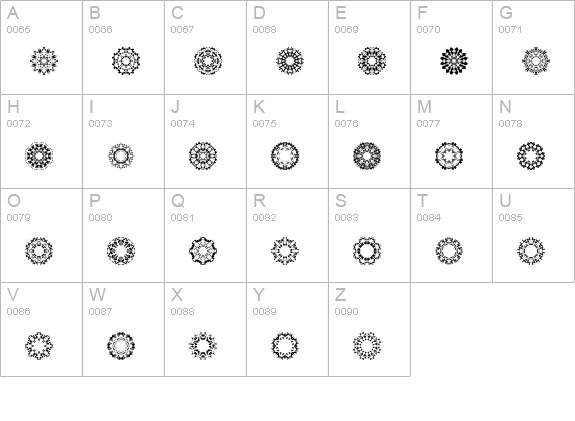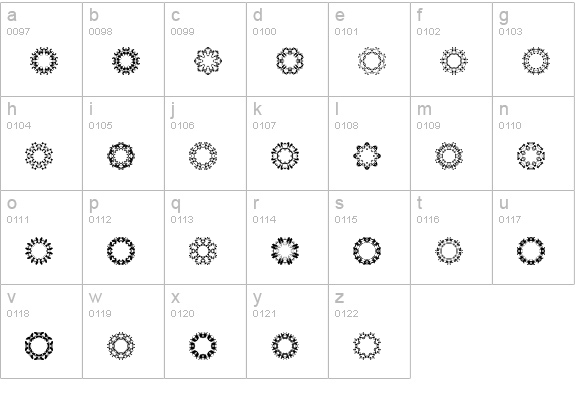
LaMorte10 Font Details
LaMorte10 font is a stunning display typeface that exudes elegance and sophistication. Its sleek and stylish design makes it perfect for adding a touch of class to any project. The intricate details and unique letterforms of LaMorte10 font make it a true standout in the world of typography. But what truly sets LaMorte10 font apart is its availability. This extraordinary font is not only exceptional in its design, but it is also completely free. Yes, you read that right – LaMorte10 font is freely available to download at FontsMarket.com. Whether you're a professional designer looking to add a touch of elegance to your latest project or an individual looking to enhance your personal creations, LaMorte10 font is the perfect choice. With its timeless beauty and free availability, it's an opportunity that shouldn't be missed. Download LaMorte10 font today from FontsMarket.com and elevate your designs to new heights. Get ready to captivate your audience with the sheer beauty and sophistication of LaMorte10 font. Don't settle for ordinary when you can have extraordinary – and all for free.